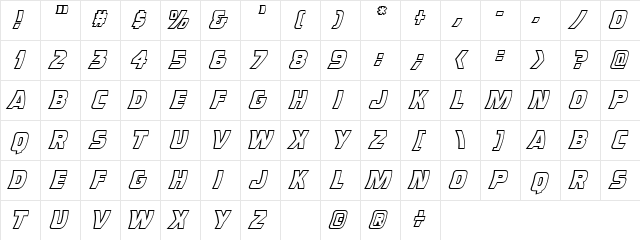
CCDoubleBack Regular
CCDoubleBack Family
CCDoubleBack Regular
Design Context for CCDoubleBack
CCDoubleBack is a composed and adaptable typeface that performs quietly and consistently across a wide range of design contexts.